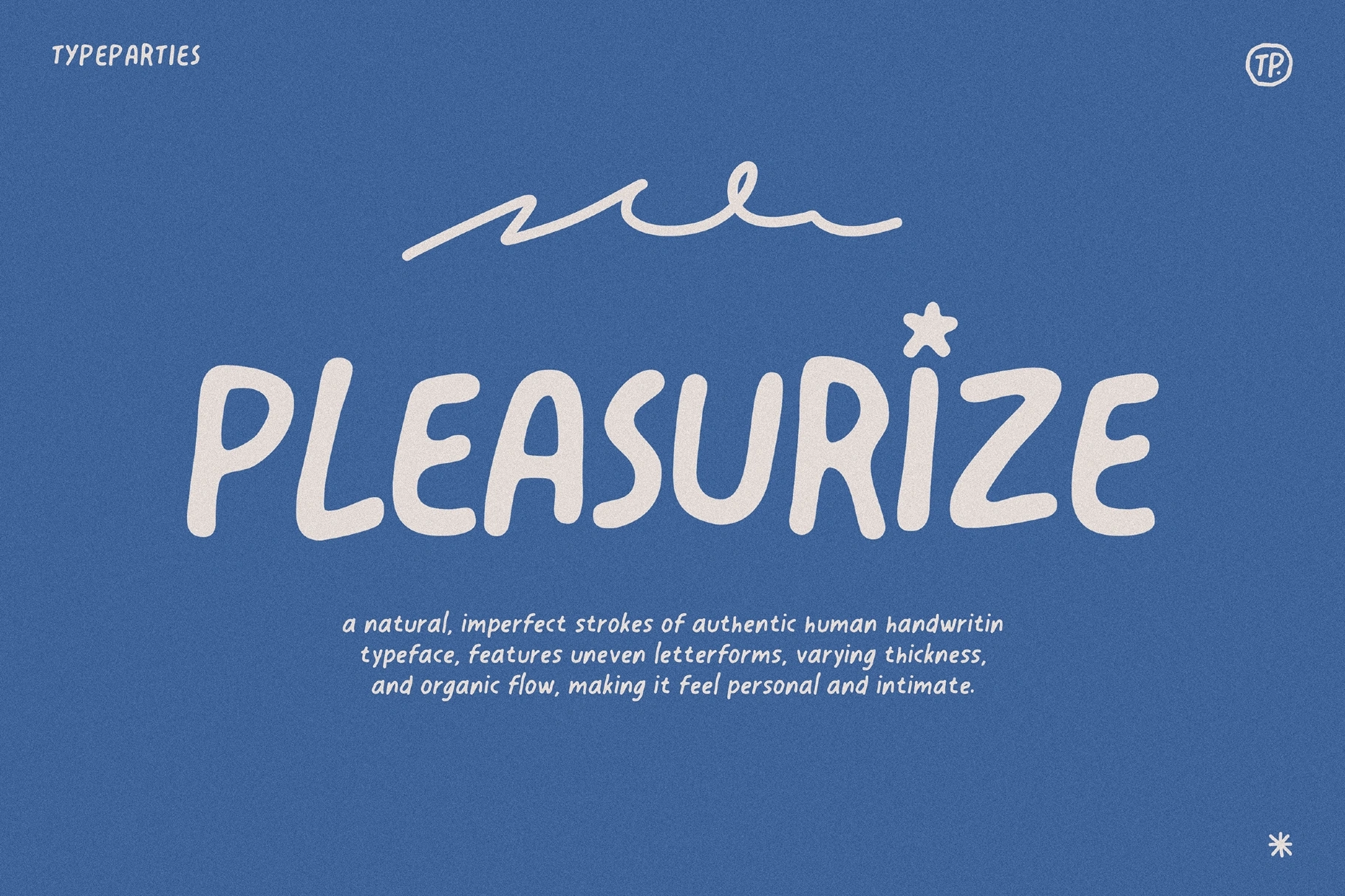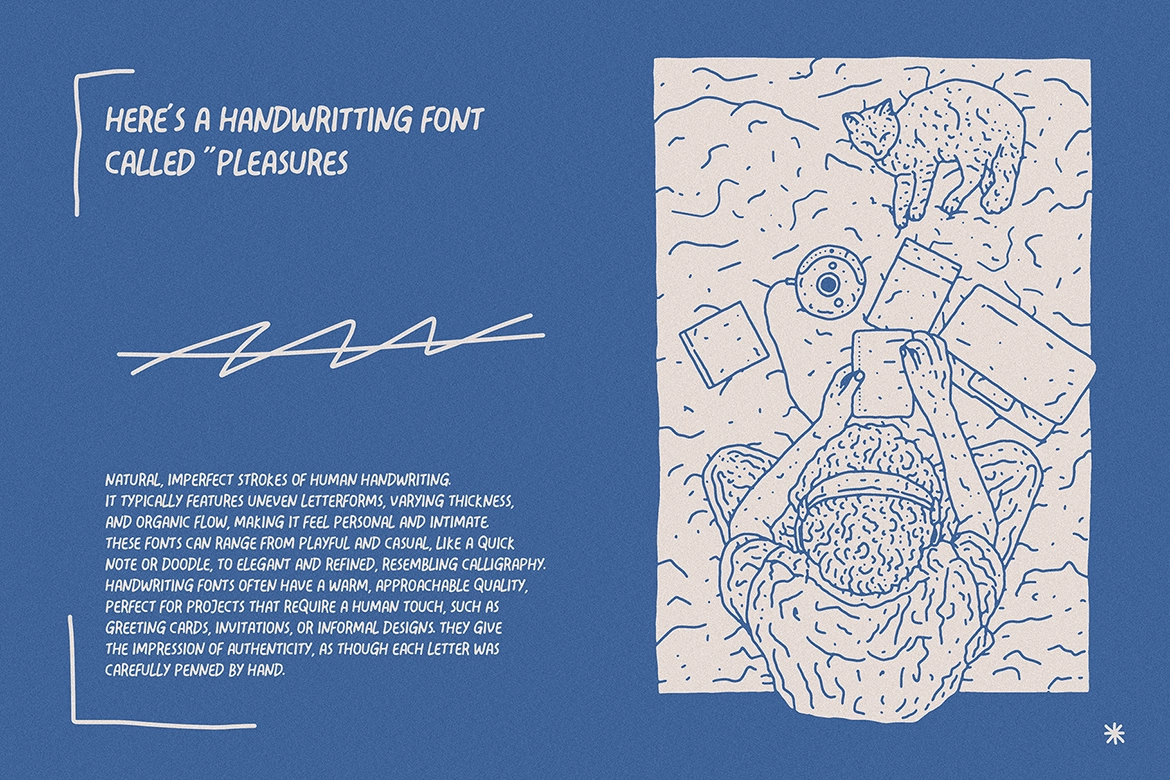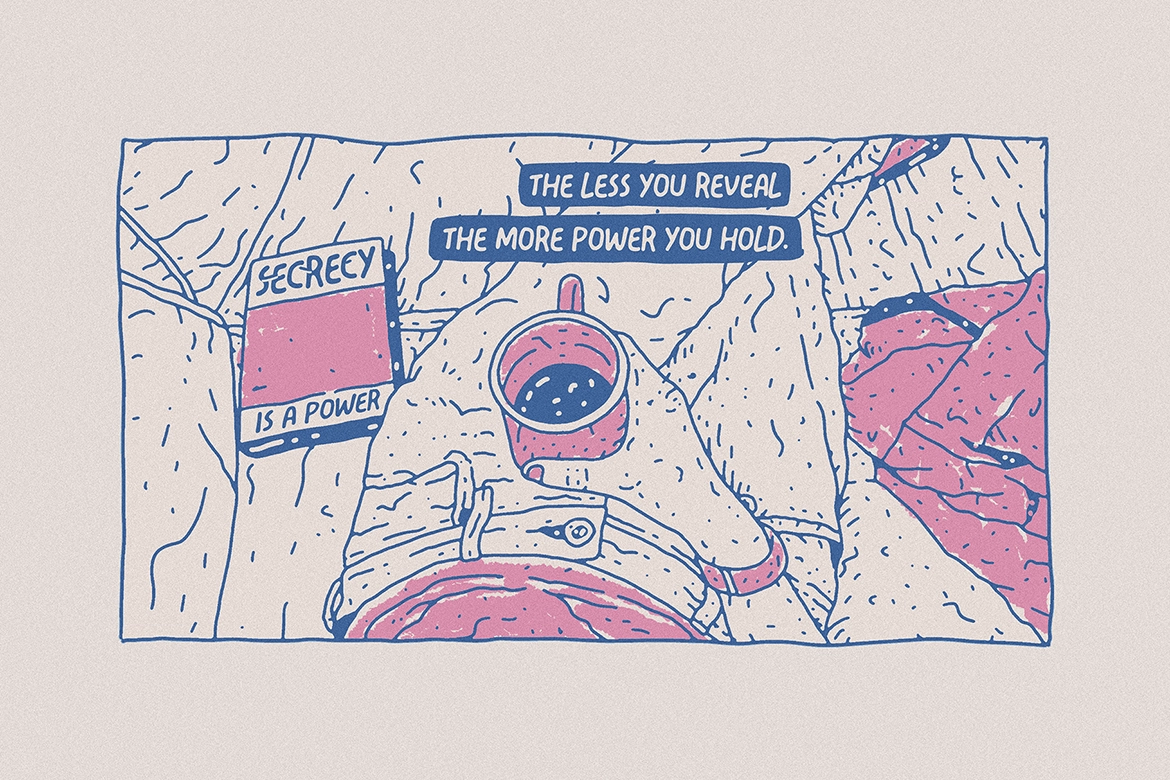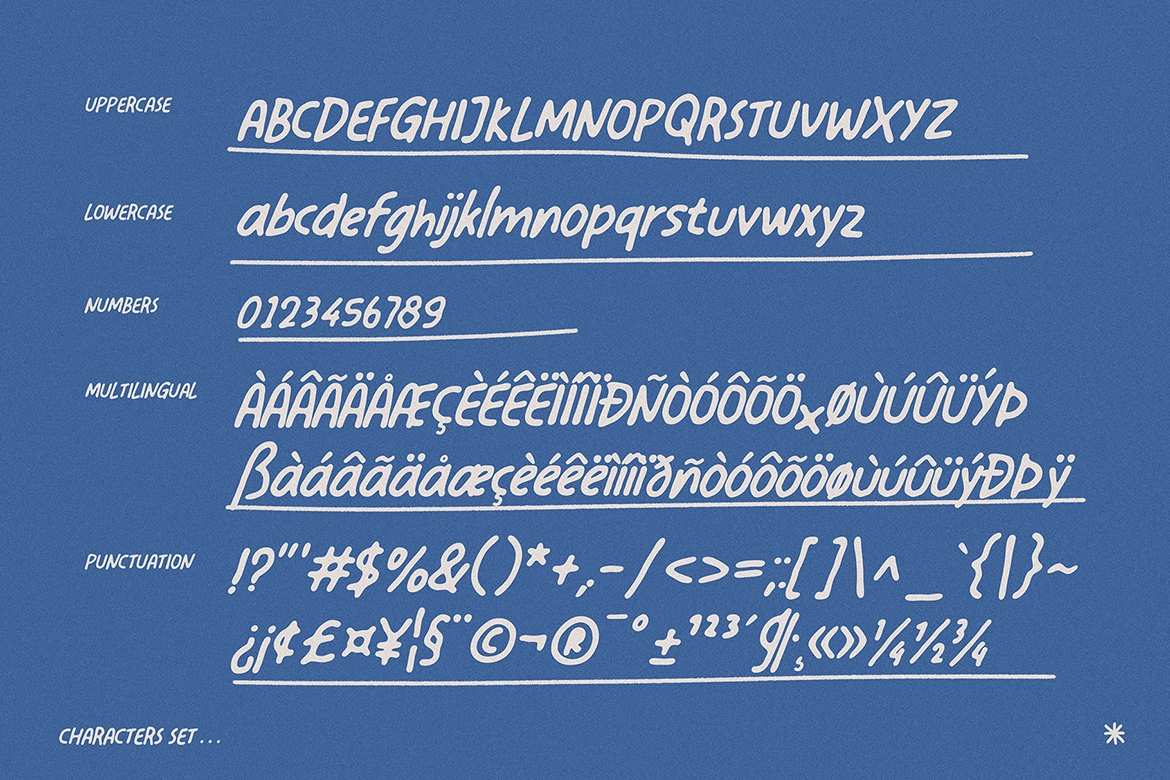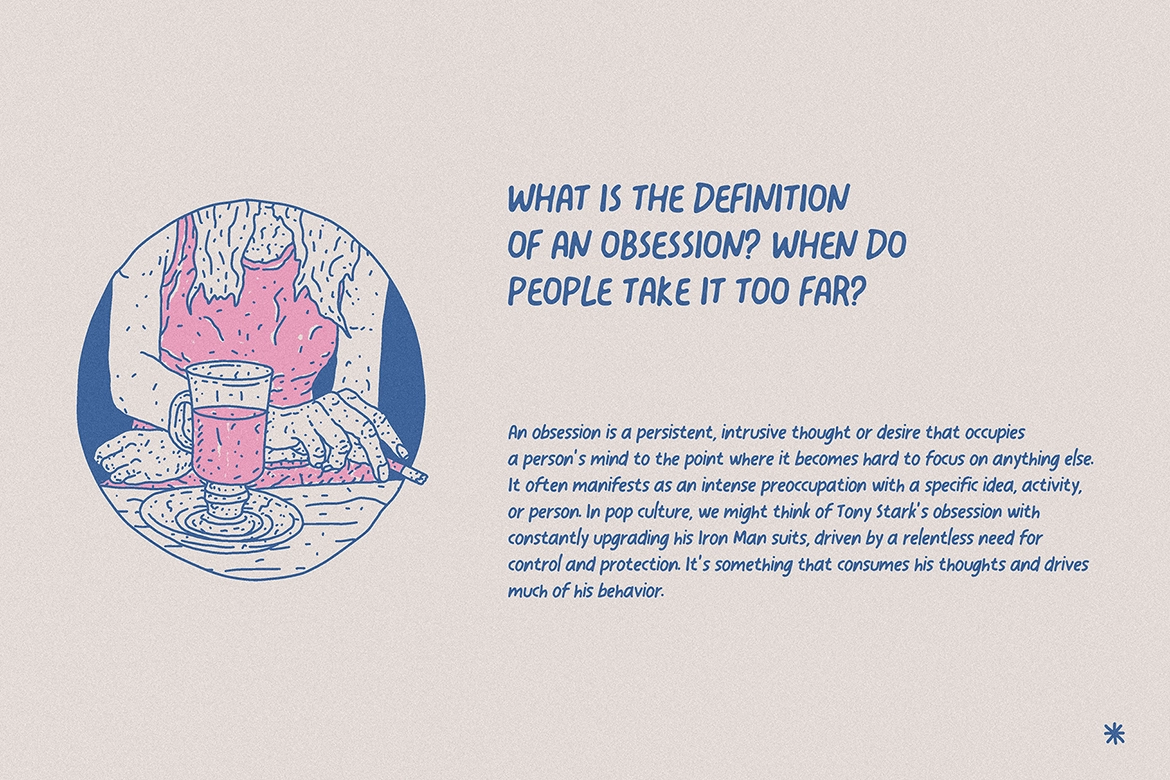
Pleasurize - Authentic Handwritten Font
Pleasurize – Authentic Handwritten Font is a natural and expressive typeface inspired by real human handwriting. Designed with imperfect strokes, uneven letterforms, and subtle variations in thickness, it captures the organic rhythm of pen-on-paper writing.
The font flows effortlessly, creating a personal and intimate tone that feels warm and approachable. Whether used for branding, packaging, quotes, social media graphics, invitations, or editorial accents, Pleasurize adds a genuine human touch to any design. It balances casual charm with refined character, making it versatile for both playful and elegant compositions.
If you're looking for a handwritten font that feels authentic, emotional, and naturally imperfect, Pleasurize delivers personality in every letter.
- Natural Handwritten Style
- Organic Stroke Variation